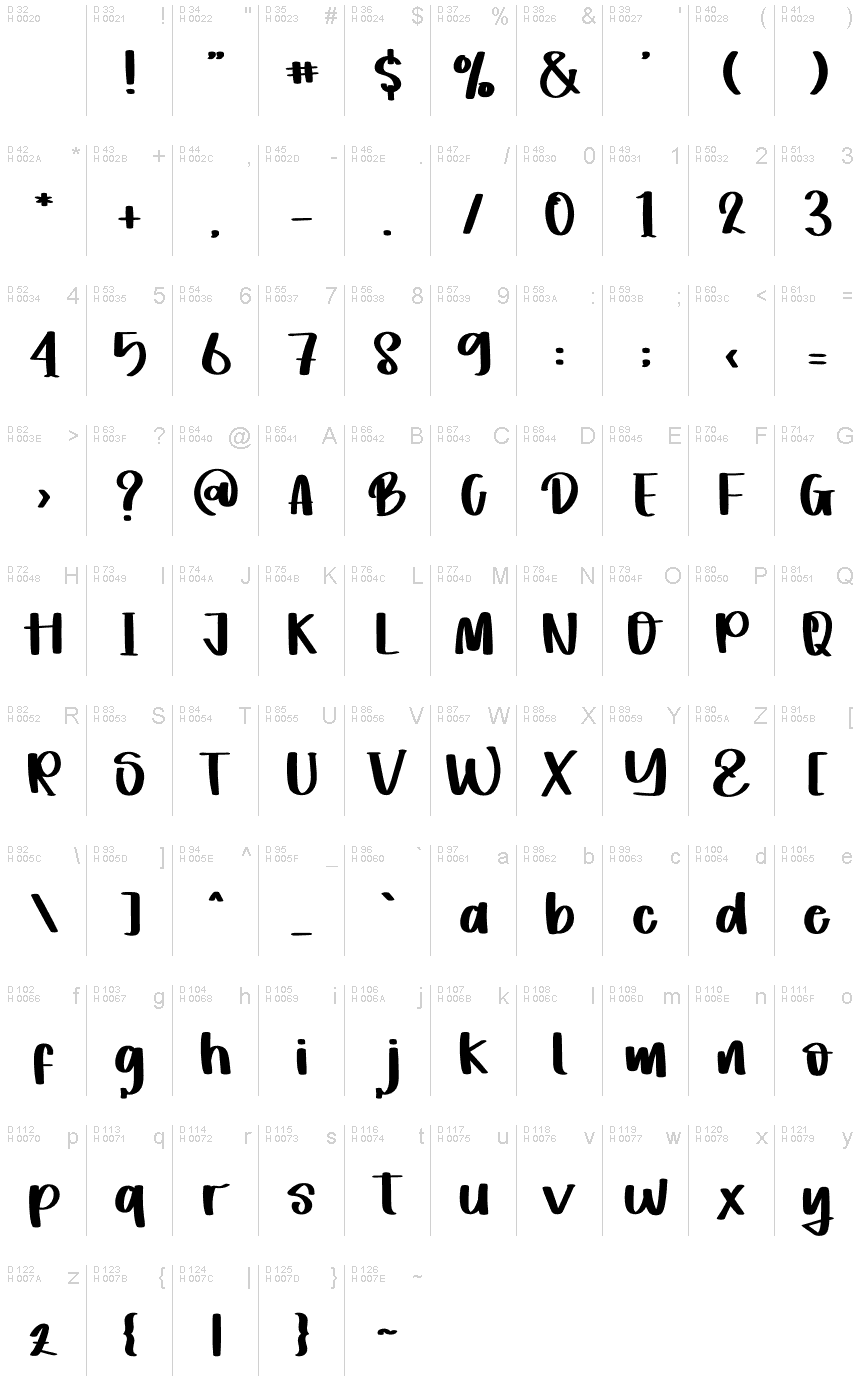
Hello Vintage
Hello Vintage is a light, vintage handwritten font created by FreshtypeINK. Perfect for those who wish to add a touch of nostalgia to their projects, this font is great for logos, posters, and invitations.